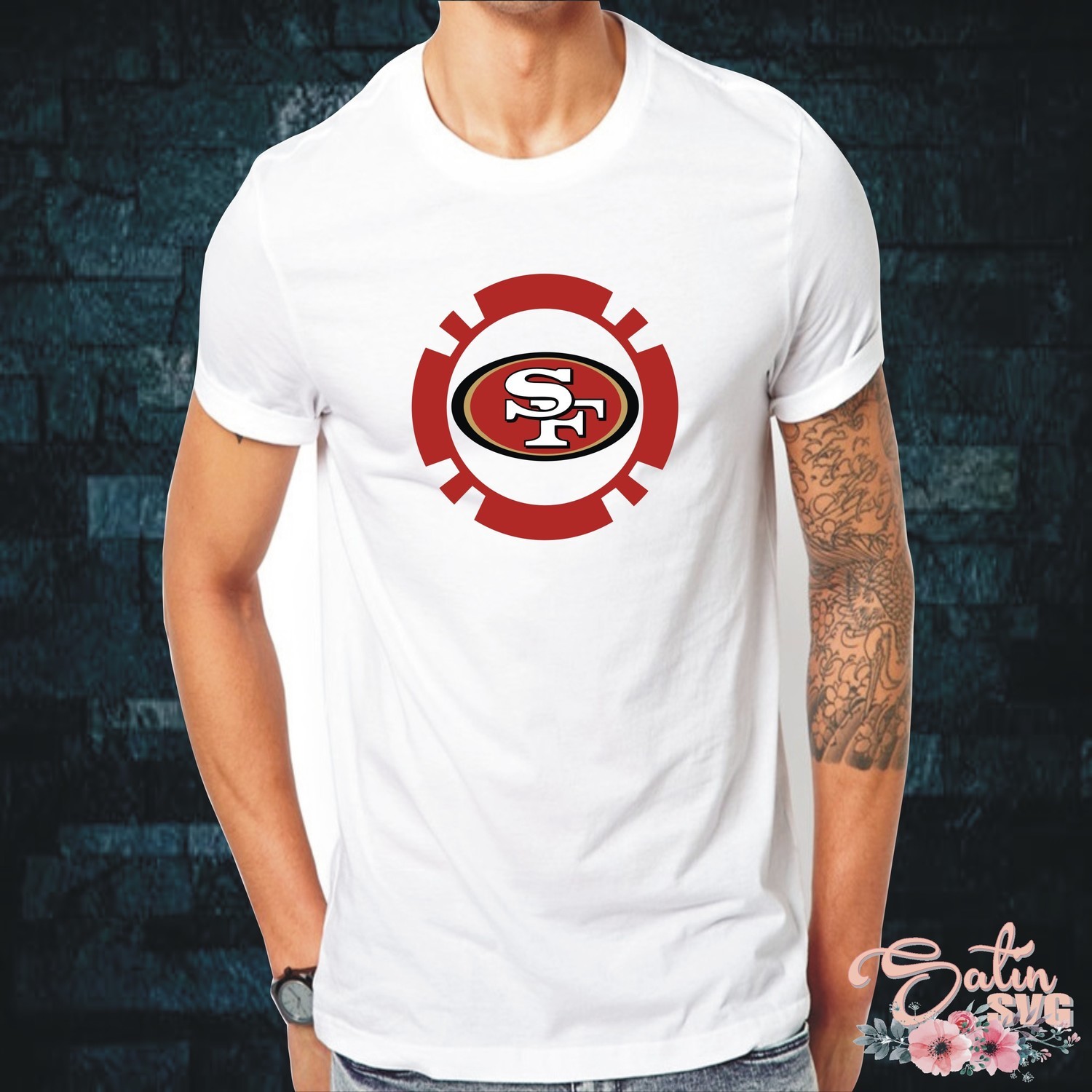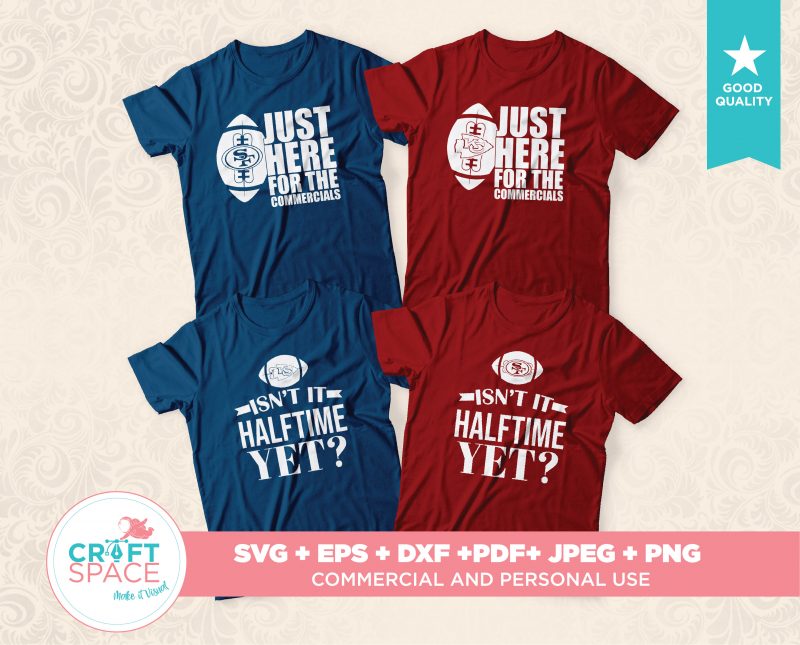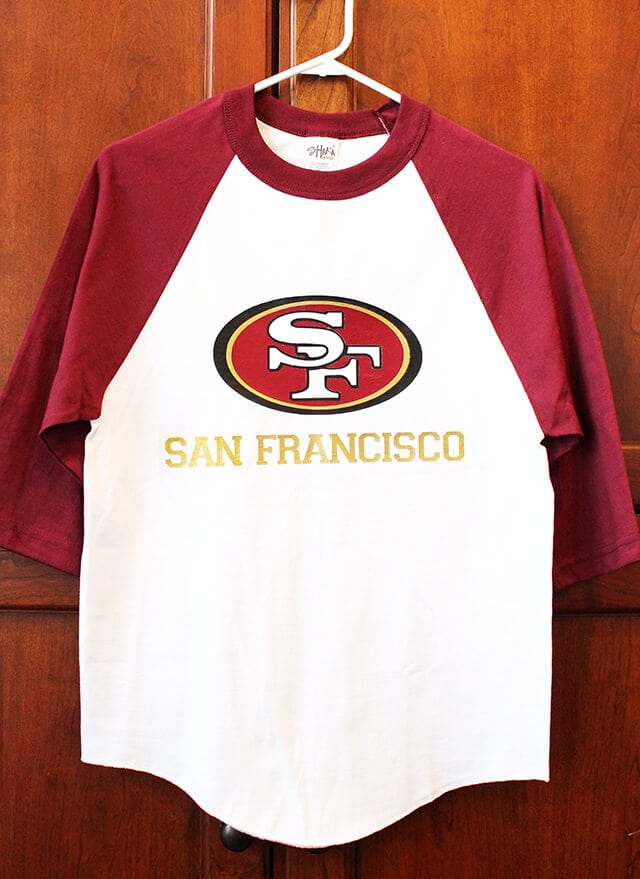
49ers Font Cricut
49ers faithful font faithful is the official brand font of the san francisco 49ers based on the iconic sf monogram introduced in the early 1960s and a continuation of the 49ers logo type introduced in mid to late 1980s.
Faithful is the official brand font of the san francisco 49ers based on the iconic sf monogram introduced in the early 1960s and a continuation of the 49ers logo type introduced in mid to late 1980s. In fact finding paid fonts for cricut can be difficult in itself. 49ers svg files for cricut 49ers svg san francisco 49ers svg 49ers cut files 49ers logo cricut files devotoart.
Free alternative fonts for san francisco 49ers logo. Generate a jersey for your youth league or mimic a professional nfl jersey all for free. The closest font you can get for the san francisco 49ers logo is clarendon std bold font.
The closest free font you can get is kameron bold font. Here is a great selection free of american football fonts to help you make your own custom football jerseys. Custom football jersey font.